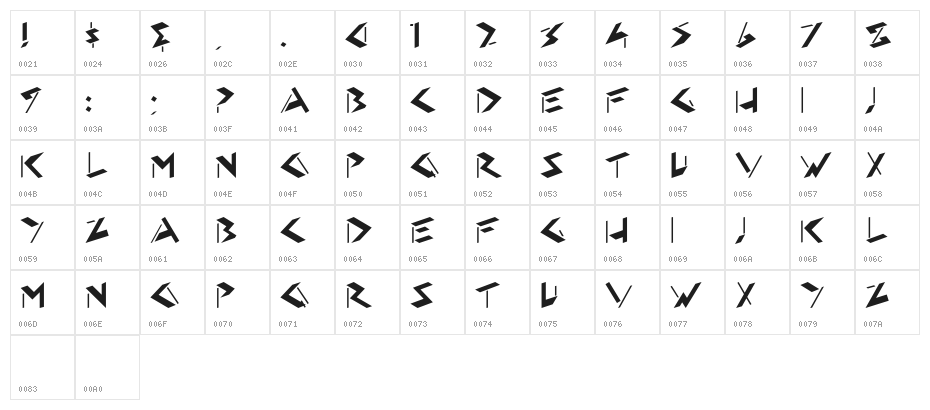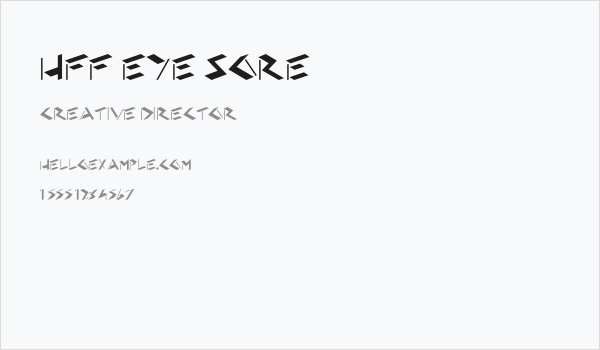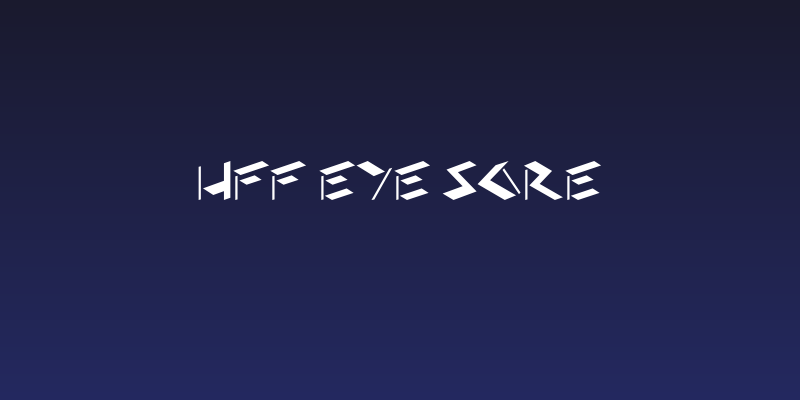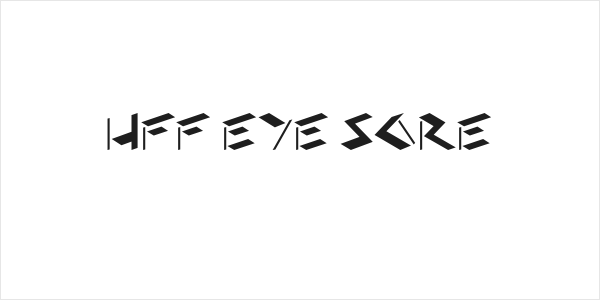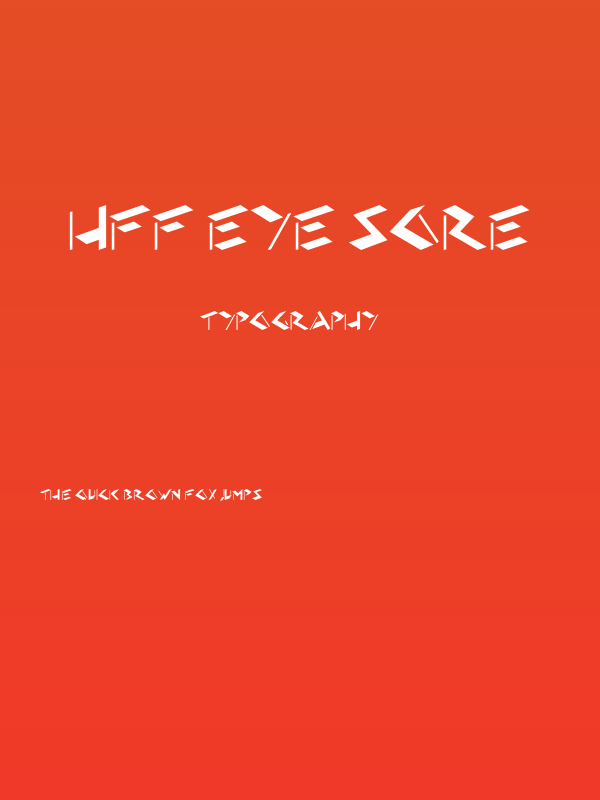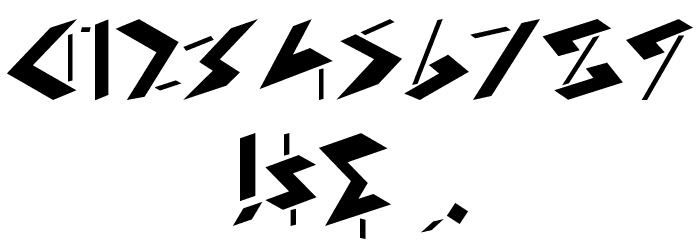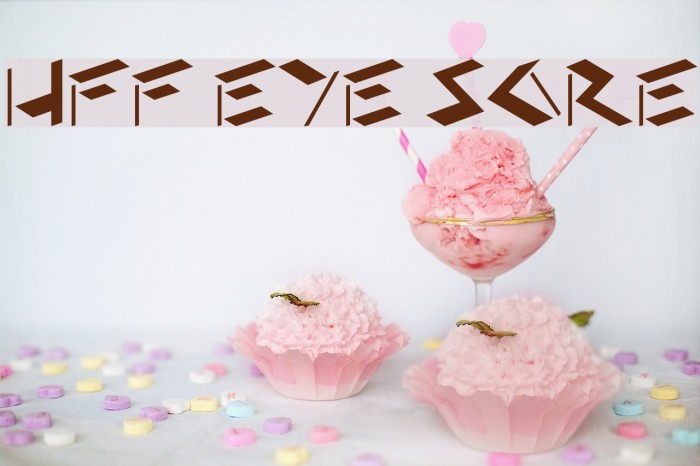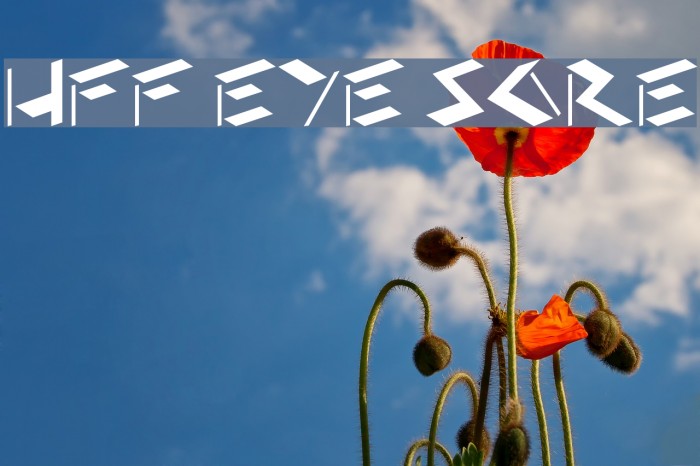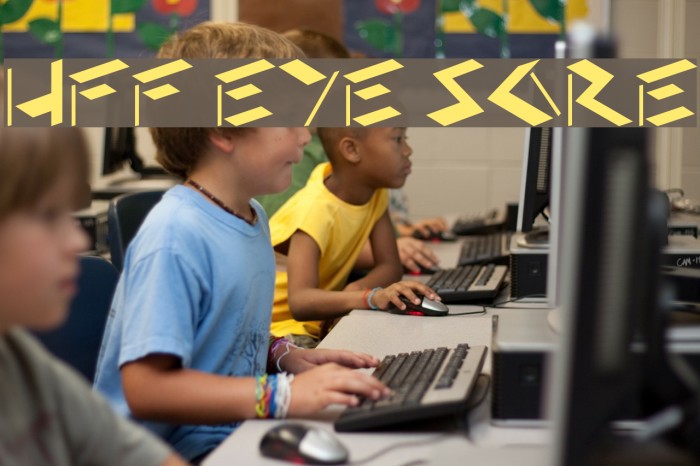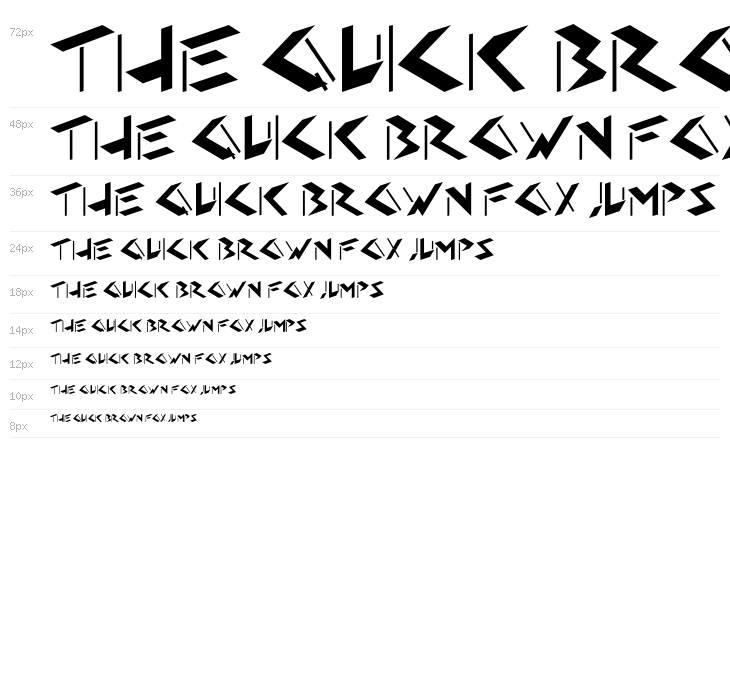
HFF Eye Sore Font
HFF Eye Sore Description
This font features a bold, angular design with sharp, geometric shapes that create a striking and edgy appearance. The characters are constructed with a series of straight lines and acute angles, giving them a fragmented and dynamic look. The uppercase and lowercase letters maintain a consistent style, with each character exhibiting a unique, abstract form. The numbers and special characters follow the same design principles, ensuring a cohesive visual identity across all elements. This font is ideal for projects that require a modern, avant-garde aesthetic.
| Proposed Projects | Ideal for modern art projects, edgy branding, album covers, and futuristic designs. |